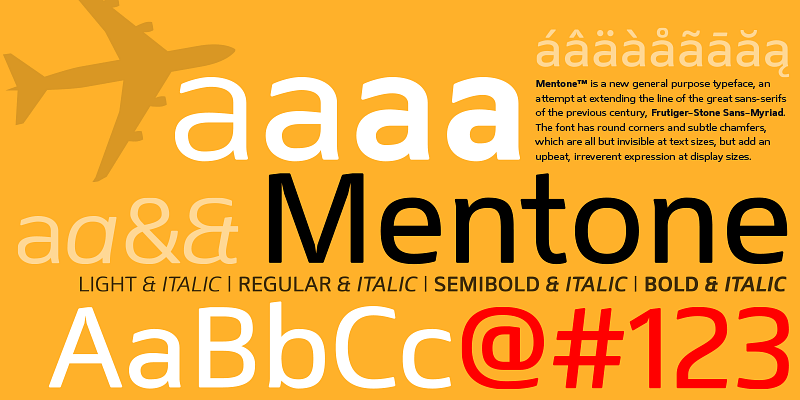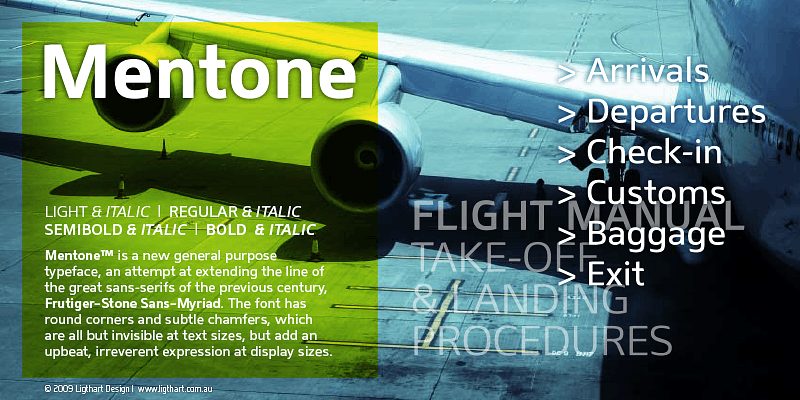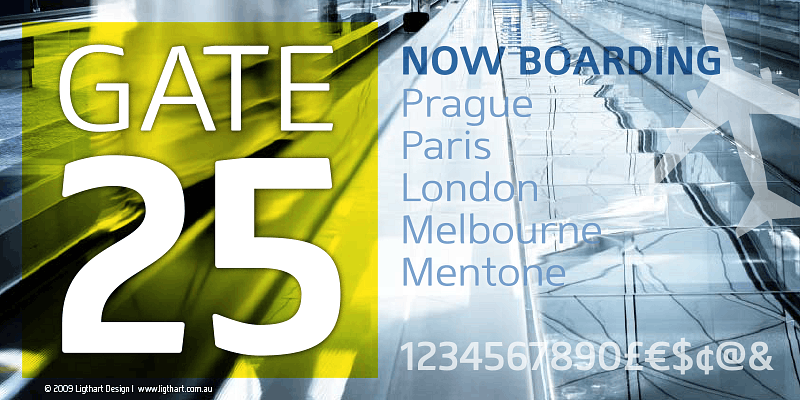
Mentone is a new general purpose typeface, an attempt at extending the line of the great sans-serifs of the previous century, Frutiger - Stone Sans - Myriad. The font has round corners and subtle chamfers, which are all but invisible at text sizes, but add an upbeat, irreverent expression at display sizes. The typeface is named after the beautiful bayside suburb of Melbourne, Australia, where the designer lived. That suburb is in turn named after Menton (Mentone in Italian), a town famous for its gardens on the French Riviera close to the Italian border.